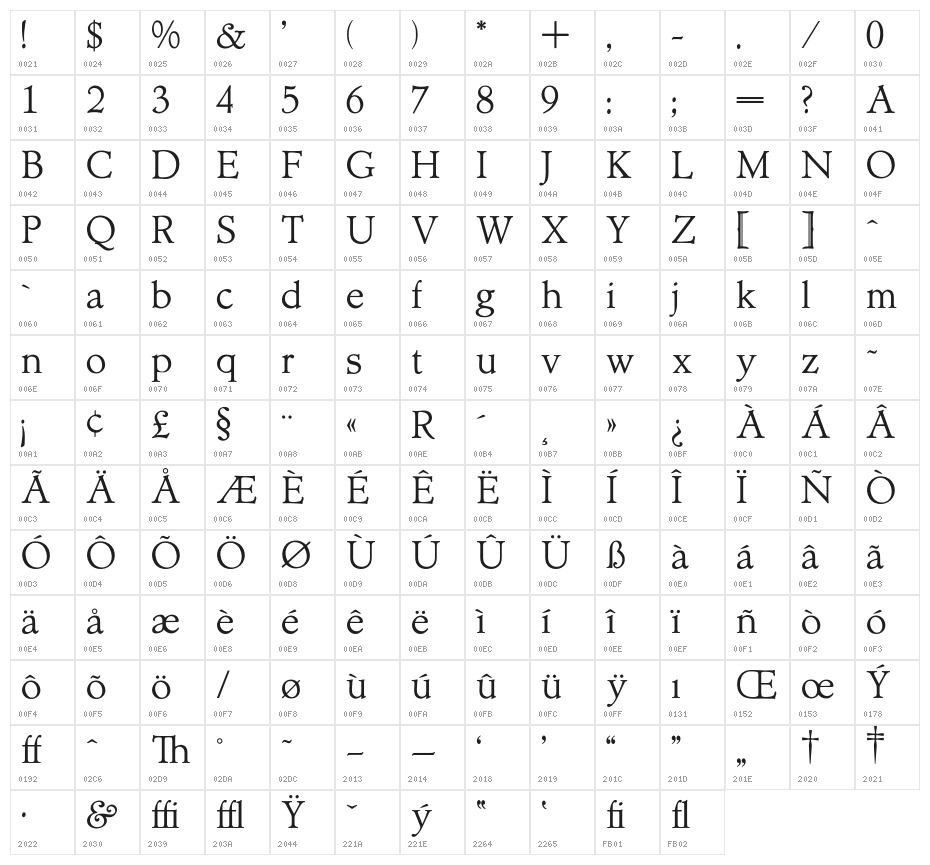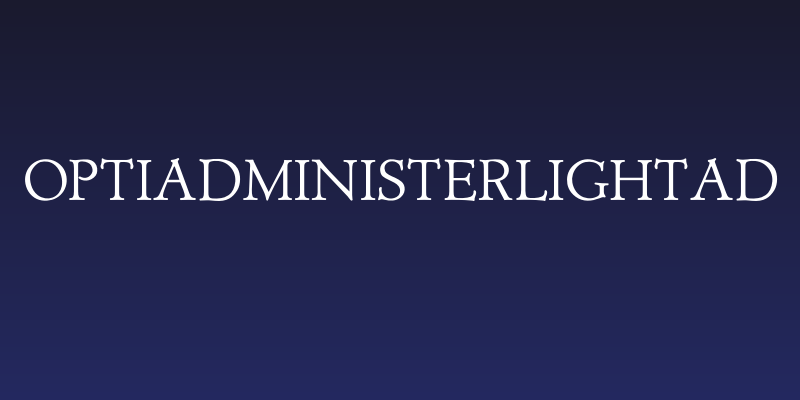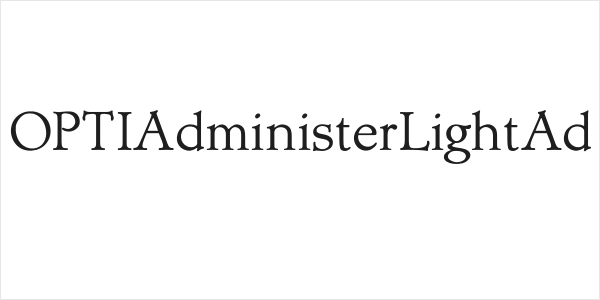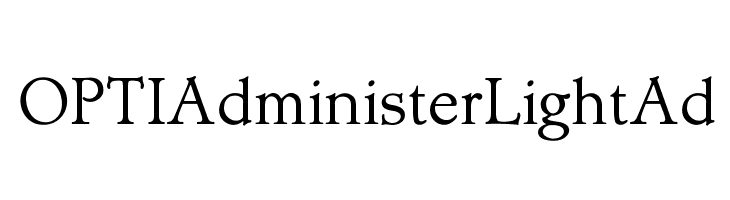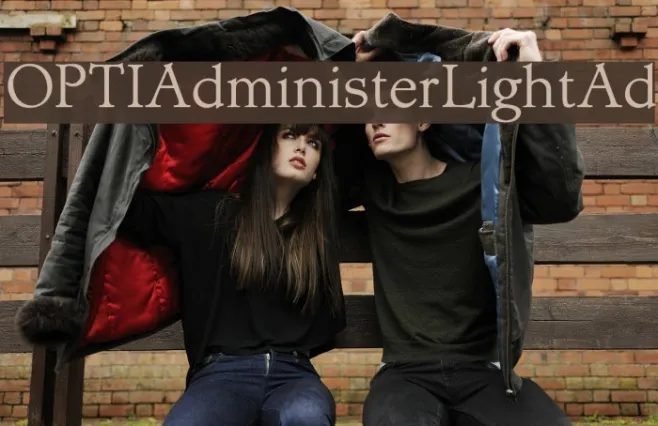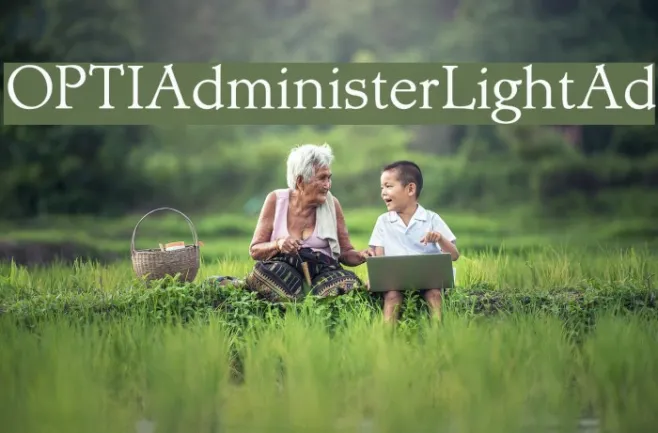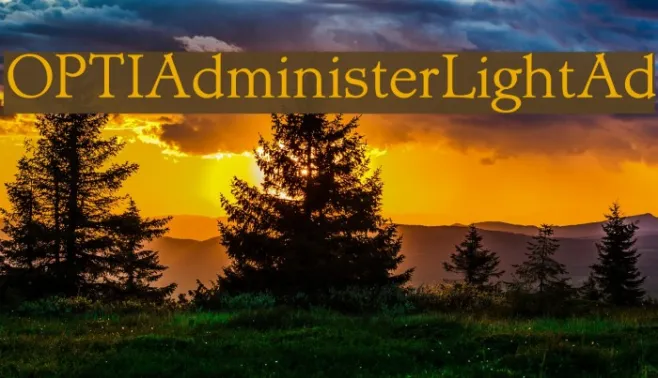
OPTIAdministerLightAd Font
OPTIAdministerLightAd Description
This font exhibits a classic serif style with elegant and refined strokes. The characters feature a balanced proportion and a slight contrast in stroke thickness, giving it a sophisticated and timeless appearance. The uppercase letters are stately and well-defined, while the lowercase letters maintain a harmonious flow. The numerals are clear and distinct, ensuring readability. Special characters are crafted with attention to detail, complementing the overall aesthetic. This font is versatile, suitable for both formal and contemporary designs, making it ideal for a wide range of applications.
| Proposed Projects | Ideal for editorial design, book covers, formal invitations, and branding projects requiring a touch of elegance. |